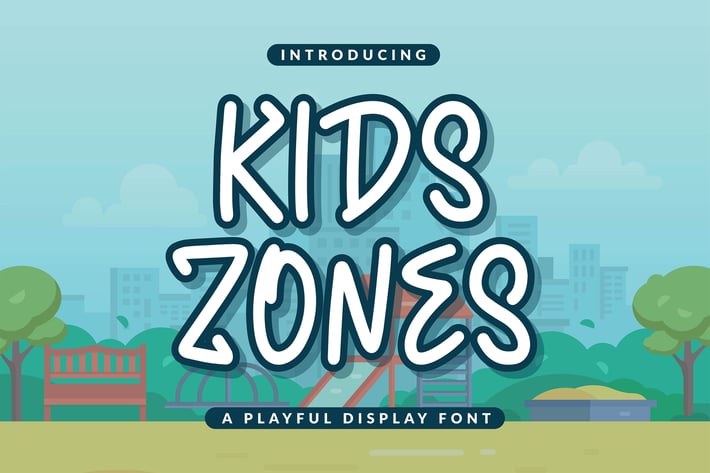
Kidszones - Display Font
Kidzones - Display Font by KrakenBox
Kidzones is a cute and fun display and decorative font. Its cool, playful & childish look makes it a fantastic choice for fashion, signature, album covers logos, branding, magazines, social media posts, advertisement, and many more. Use this display font to add that special cool touch to any design idea you can think of!